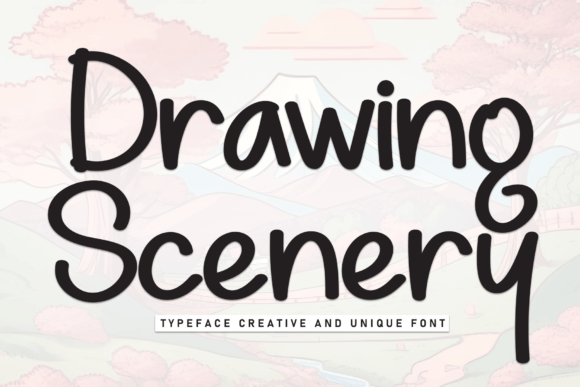
Drawing Scenery Font: Adding a Touch of Relaxed Elegance to Your Designs
In the world of typography, fonts play a crucial role in conveying the tone and personality of a design. Whether you’re working on a personal project, creating social media content, or designing invitations, the right font can make all the difference. This is where the Drawing Scenery font comes in – a casual handwritten font that captures a relaxed and friendly vibe with its natural, flowing strokes.
What is Drawing Scenery Font?
Drawing Scenery is a beautiful, handcrafted font that embodies a carefree and approachable spirit. Its unique, flowing strokes give it a distinct character that sets it apart from more formal fonts. The font’s design is inspired by the natural world, with a focus on creating a sense of warmth and authenticity.
Key Features of Drawing Scenery Font
- Natural and Flowing Strokes: The font’s strokes are designed to mimic the natural flow of handwriting, giving it a relaxed and effortless feel.
- Casual and Friendly Vibe: Drawing Scenery exudes a warm and welcoming personality, making it perfect for designs that require a personal touch.
- Highly Readable: Despite its casual nature, the font remains highly readable, even at smaller sizes.
- Multilingual Support: Drawing Scenery supports multiple languages, making it a versatile choice for global designs.
Use Cases for Drawing Scenery Font
Drawing Scenery is an incredibly versatile font that can be used in a variety of design projects. Here are some of the most popular use cases:
- Personal Projects: Whether you’re designing a blog, a portfolio, or a personal website, Drawing Scenery adds a touch of warmth and personality to your design.
- Social Media: Use Drawing Scenery to create engaging social media content that stands out from the crowd. Its friendly vibe makes it perfect for posts, captions, and stories.
- Invitations: Add a touch of elegance and sophistication to your invitations with Drawing Scenery. Its flowing strokes make it ideal for wedding invitations, birthday cards, and more.
- Branding: Drawing Scenery can be used to create a unique brand identity that sets your business apart. Its natural, effortless style works well for logos, packaging, and marketing materials.
Benefits of Using Drawing Scenery Font
So why should you choose Drawing Scenery for your next design project? Here are some of the key benefits:
- Effortless Charm: Drawing Scenery adds a charming, effortless touch to any design, making it perfect for projects that require a personal and friendly vibe.
- Warmth and Authenticity: The font’s natural, flowing strokes convey a sense of warmth and authenticity, making it ideal for designs that require a human touch.
- Easy to Read: Despite its casual nature, Drawing Scenery remains highly readable, even at smaller sizes.
- Versatile: The font’s versatility makes it suitable for a wide range of design projects, from personal blogs to professional branding.
How to Use Drawing Scenery Font Effectively
To get the most out of Drawing Scenery, here are some tips for using it effectively in your designs:
- Pair with Complementary Fonts: Combine Drawing Scenery with complementary fonts to create visual interest and hierarchy in your design.
- Use for Headings and Body Text: Drawing Scenery works well for both headings and body text, making it a great choice for designs that require a consistent look and feel.
- Experiment with Colors: The font’s natural style works well with a range of colors, so don’t be afraid to experiment and find the perfect combination for your design.
- Keep it Simple: While Drawing Scenery is a decorative font, it’s best used in simple and clean designs that allow the font to shine.
In conclusion, Drawing Scenery is a beautiful and versatile font that adds a touch of relaxed elegance to any design. Its natural, flowing strokes and friendly vibe make it perfect for personal projects, social media, invitations, and branding. With its high readability, multilingual support, and effortless charm, Drawing Scenery is a great choice for designers looking to add a personal touch to their designs.
- What type of font is Drawing Scenery? Drawing Scenery is a casual handwritten font with natural, flowing strokes.
- Is Drawing Scenery suitable for professional designs? Yes, Drawing Scenery can be used in professional designs, especially those that require a friendly and approachable tone.
- Is Drawing Scenery easy to read? Yes, Drawing Scenery is highly readable, even at smaller sizes.